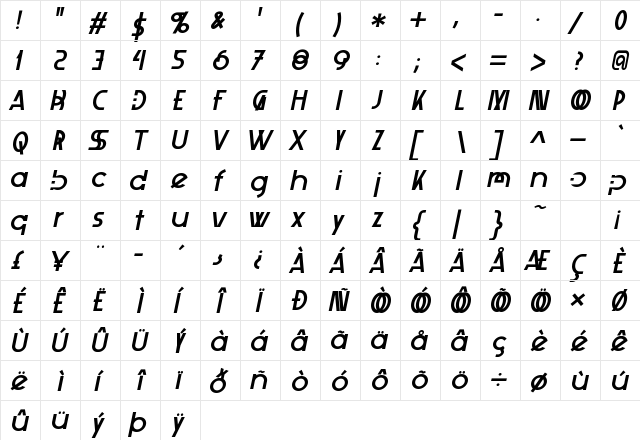
XelitaItalic Regular
Design Context for XelitaItalic Typeface
XelitaItalic is a composed and adaptable typeface that performs quietly and consistently across a wide range of design contexts. The dynamic lean of this cut emphasises speed and emphasis in any layout.
Pro Tip: Use XelitaItalic for emphasis, pull quotes, and subheadings where its slanted energy can add rhythm to the layout.